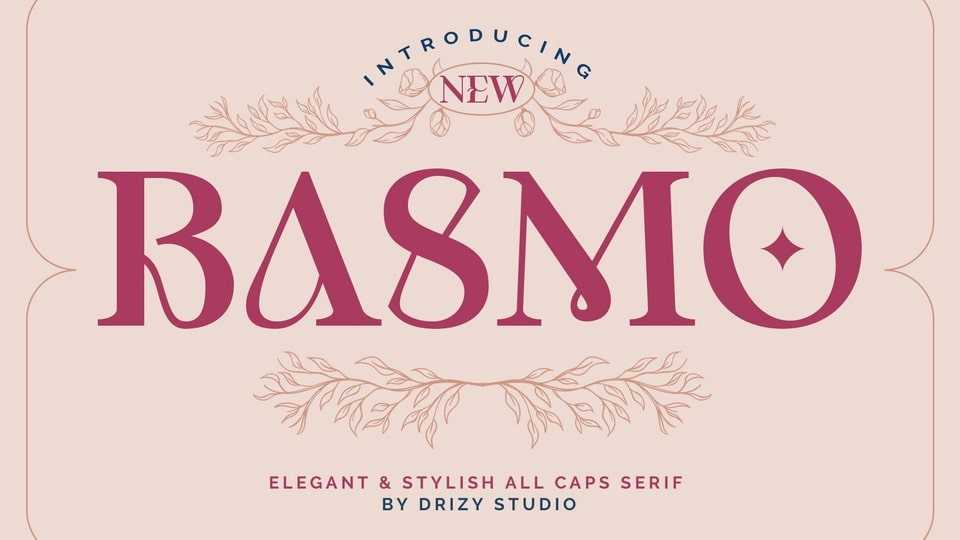
Download Basmo font, a stylish and elegant serif typeface. Its exquisite and fashionable character is suitable for modern and aesthetic theme of your project.
Designer: Drizy Studio